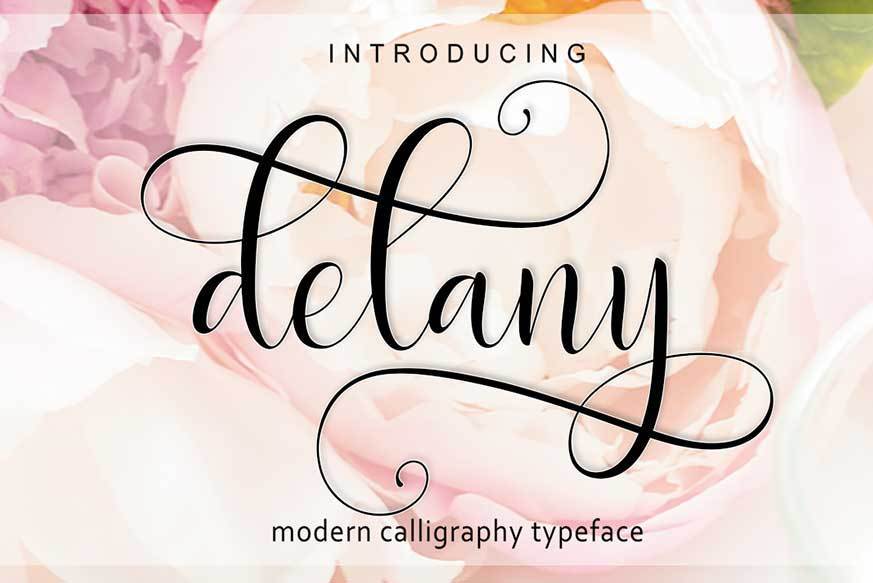
Delany Script Font
Delany Script a new fresh & modern script with a handmade calligraphy style, decorative characters and a dancing baseline! So beautiful on invitation like greeting cards, branding materials, business cards, quotes, posters, and more!!